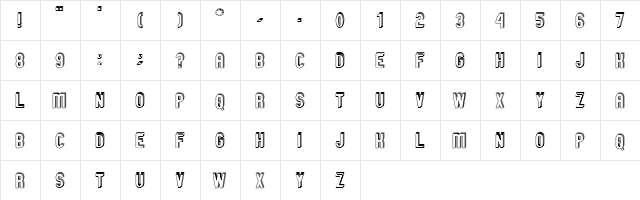
GM Exp Offset Doubleoutline Regular
Design Context for GM Exp Offset Doubleoutline Typeface
GM Exp Offset Doubleoutline is built around its visual character rather than neutral utility — its distinctive forms are designed to make an impression at display sizes.
Font Pairing: Pair with a clean neutral sans-serif for body copy to let GM Exp Offset Doubleoutline's character lead without overwhelming the composition.
Pro Tip: Use GM Exp Offset Doubleoutline exclusively at display sizes — it was designed to be seen, not read at length. Let a neutral companion handle body copy.